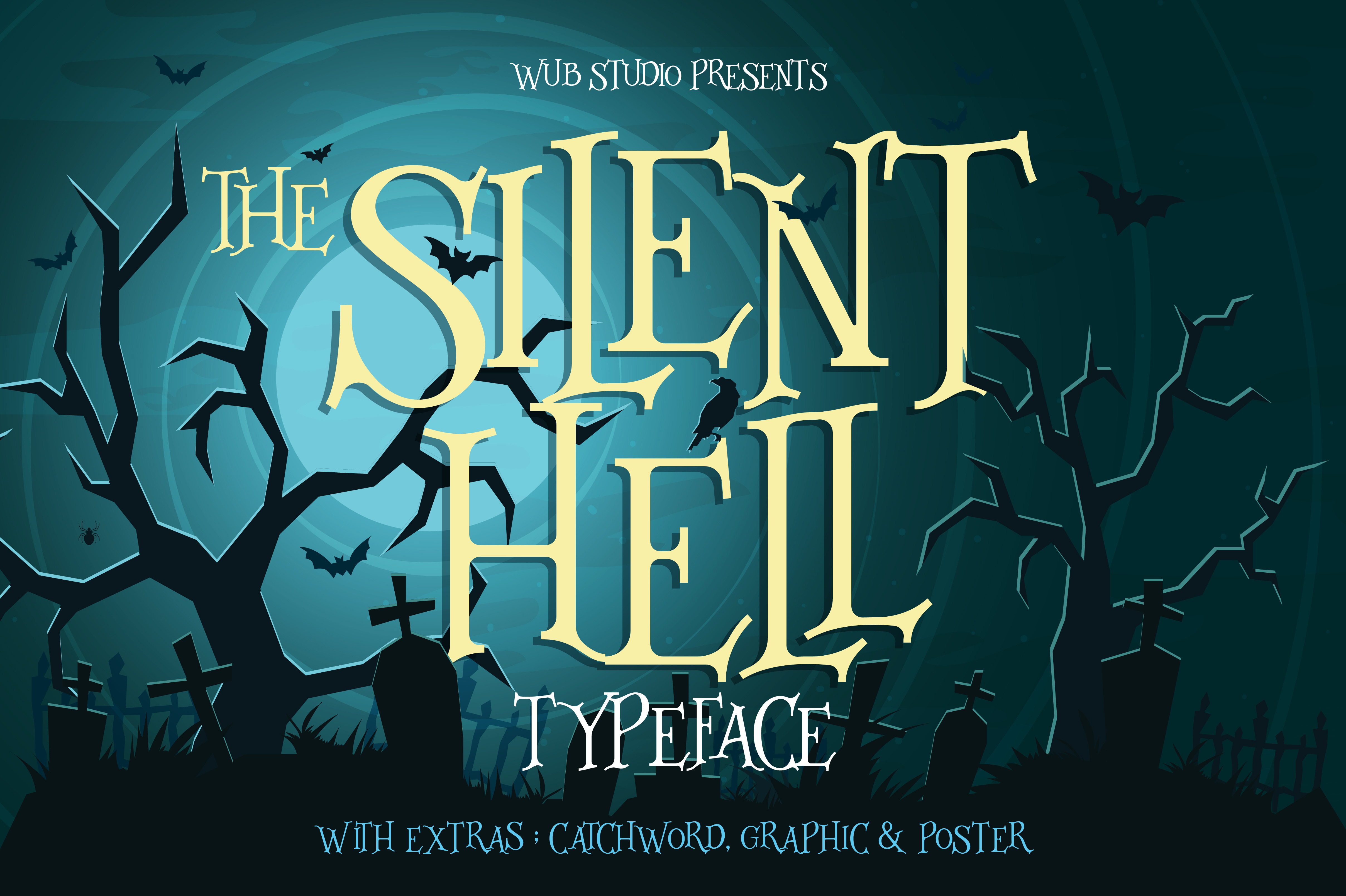
Silenthell Typeface + Bonus
Silenthell is a font that inspired from vintage typography seen on movie posters, book covers, and flyers . Silenthell is a font for you that will make a poster design , illustration , banners , book covers and others . You will get a bonus : chatch words ,
Graphic Packs and Poster Design .